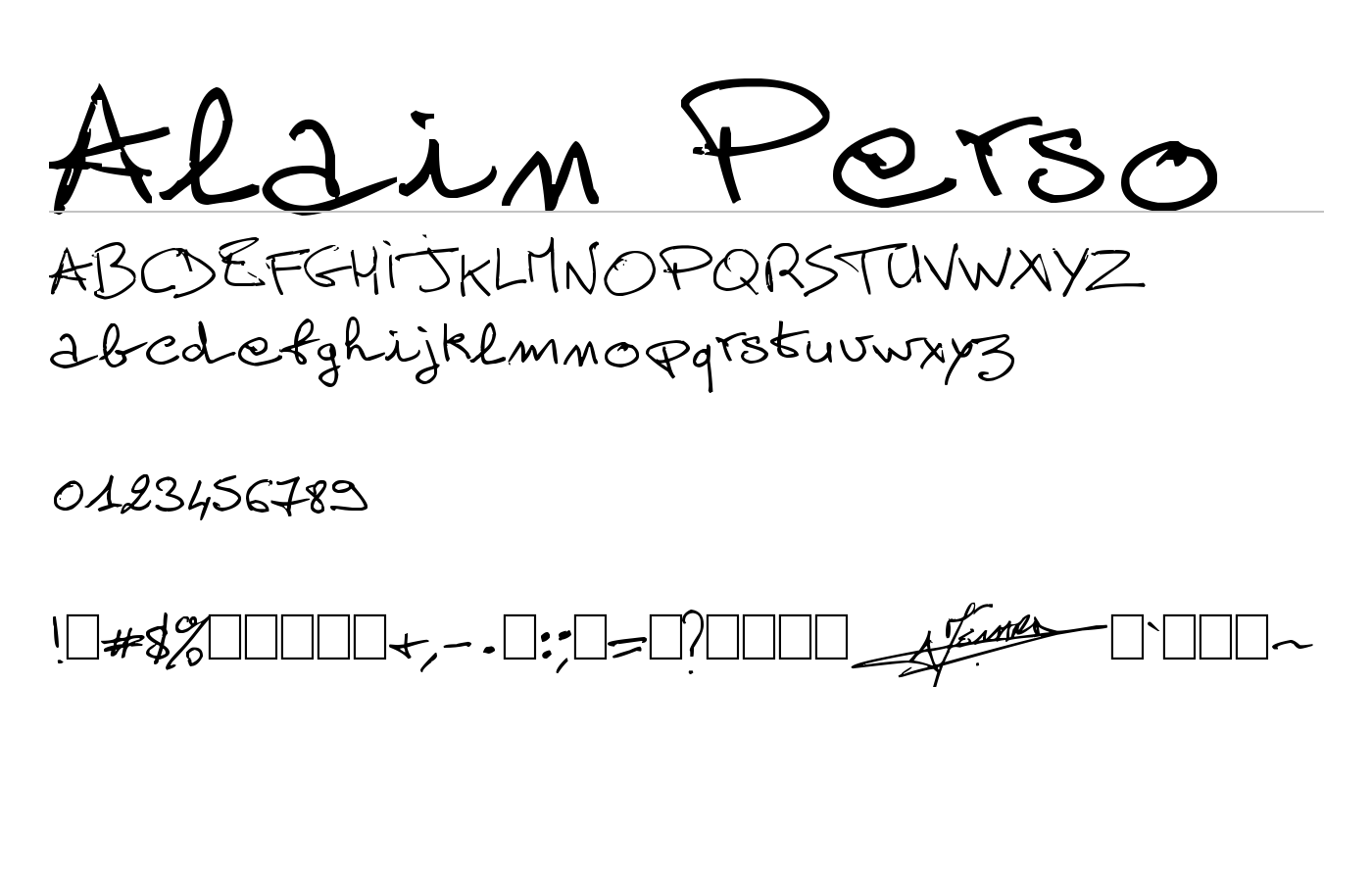
Alain Perso is a quirky, handwritten-style font with a playful and casual feel, featuring irregular, slightly erratic letterforms and a loose, airy spacing. Its light weight and uneven strokes give it a unique, personal touch, making it ideal for informal designs, creative projects, and branding that wants to convey individuality and creativity. This font works well in logos, invitations, and any design needing a spontaneous, authentic handwritten vibe.
Alain Perso Font
About Alain Perso Font